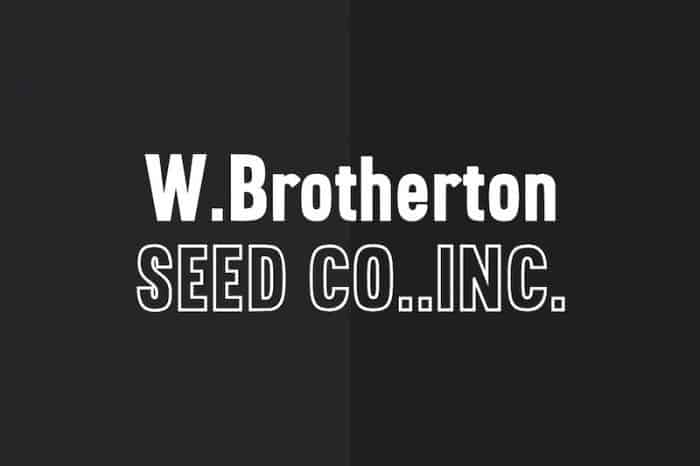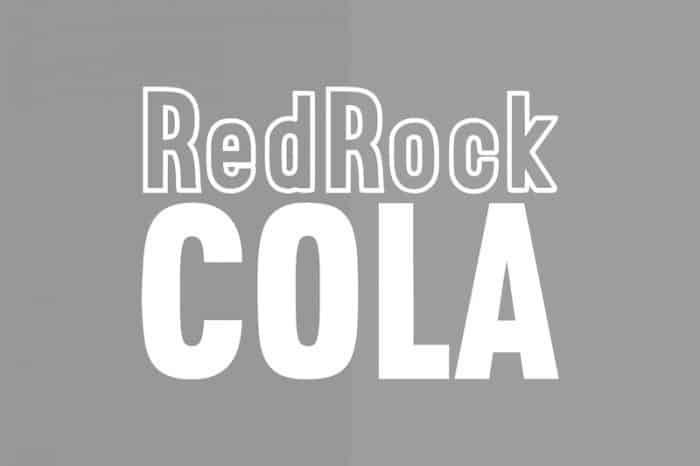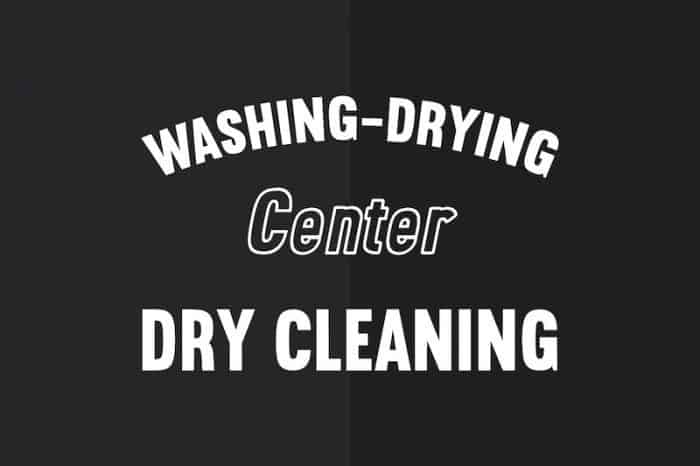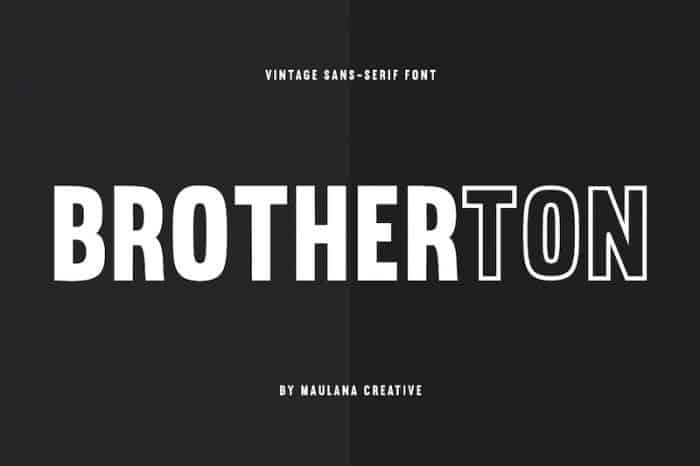
Brotherton Sans Serif Font
Brotherton Sans Serif Font is a retro typeface with an art deco feel. This sans serif font has all upper and lower case letters including numbers and punctuation. Made from font designer named Maulana Creative. It’s a vintage sans serif with Regular and Outline typeface files. This font is perfectly suited to branding, logos, magazines, films, website, headlines, titles, captions, games, apps, posters, t-shirts and more.